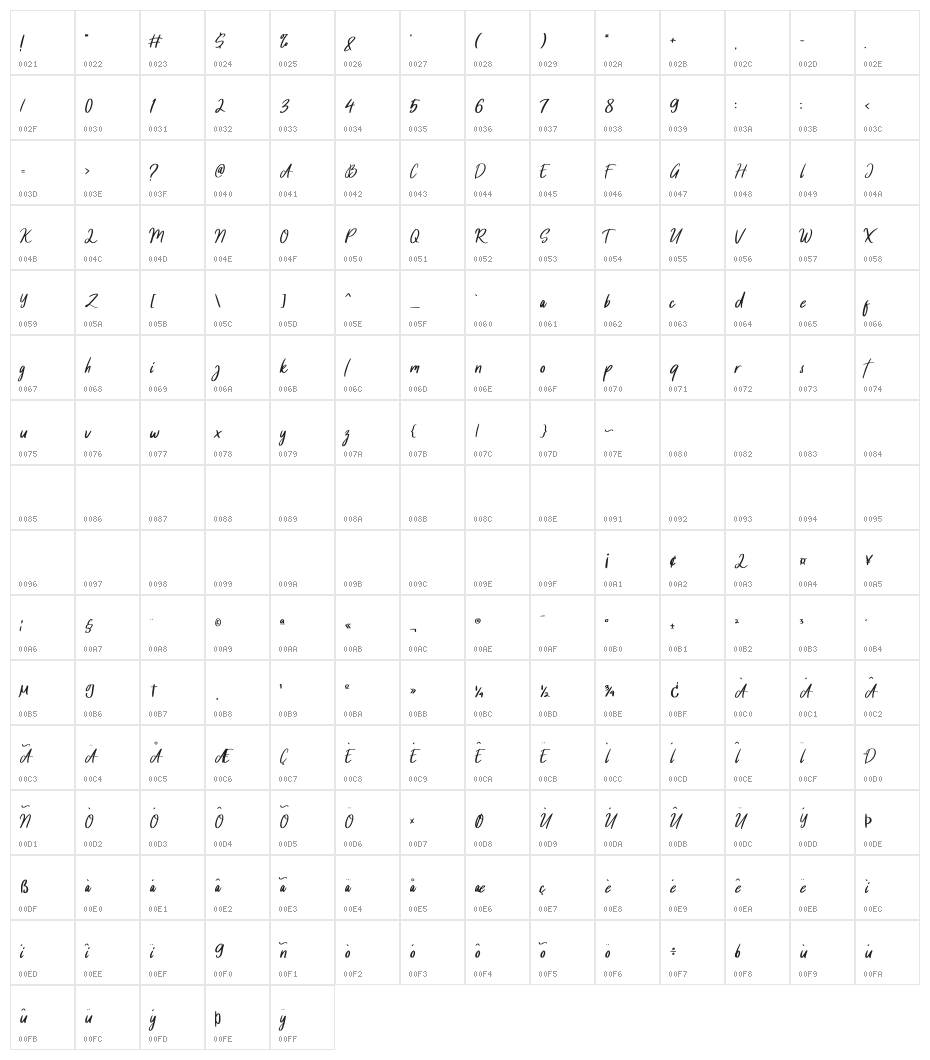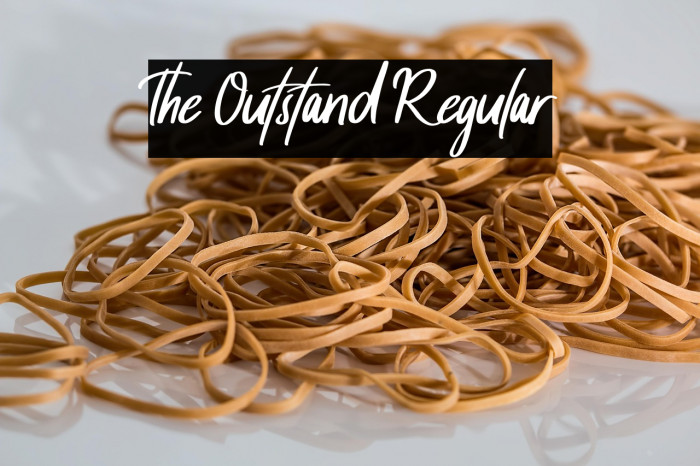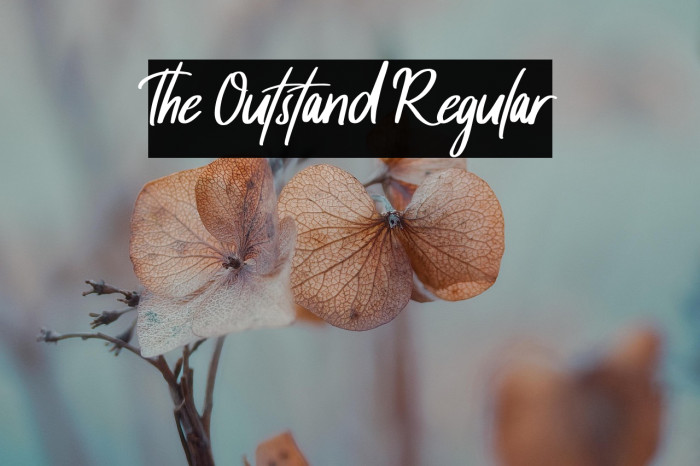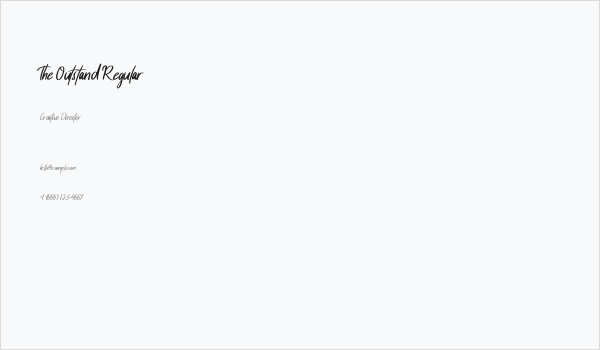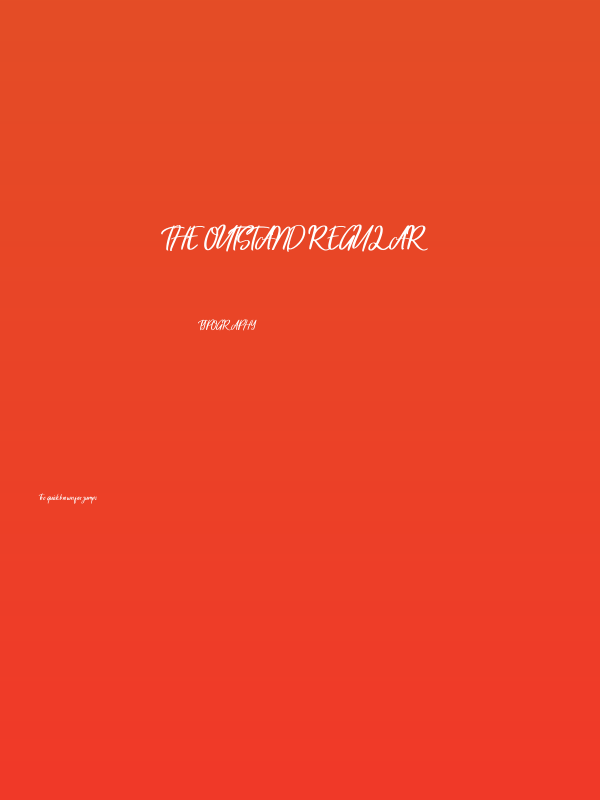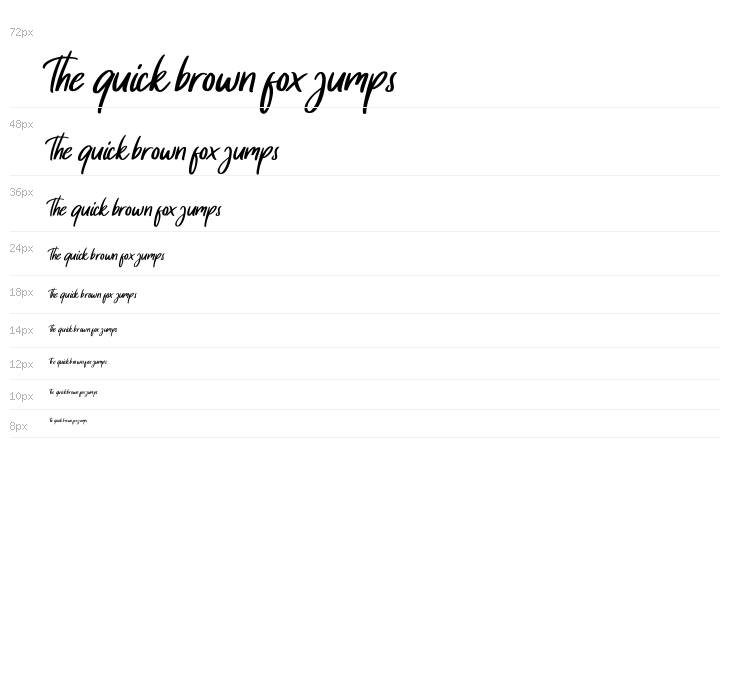
The Outstand Regular Font
The Outstand Regular Description
This font exhibits a dynamic and flowing script style, characterized by its elegant and cursive letterforms. The uppercase letters are bold and slightly slanted, giving a sense of movement and grace. The lowercase letters maintain a consistent flow, with smooth connections between characters, enhancing readability while retaining a handwritten charm. The numerals are clear and distinct, matching the overall aesthetic of the font. Special characters are crafted with the same attention to detail, ensuring they blend seamlessly with the alphabetic characters. This font is ideal for projects that require a personal touch or a sense of sophistication.
| Proposed Projects | Ideal for wedding invitations, greeting cards, branding, and elegant packaging designs. |